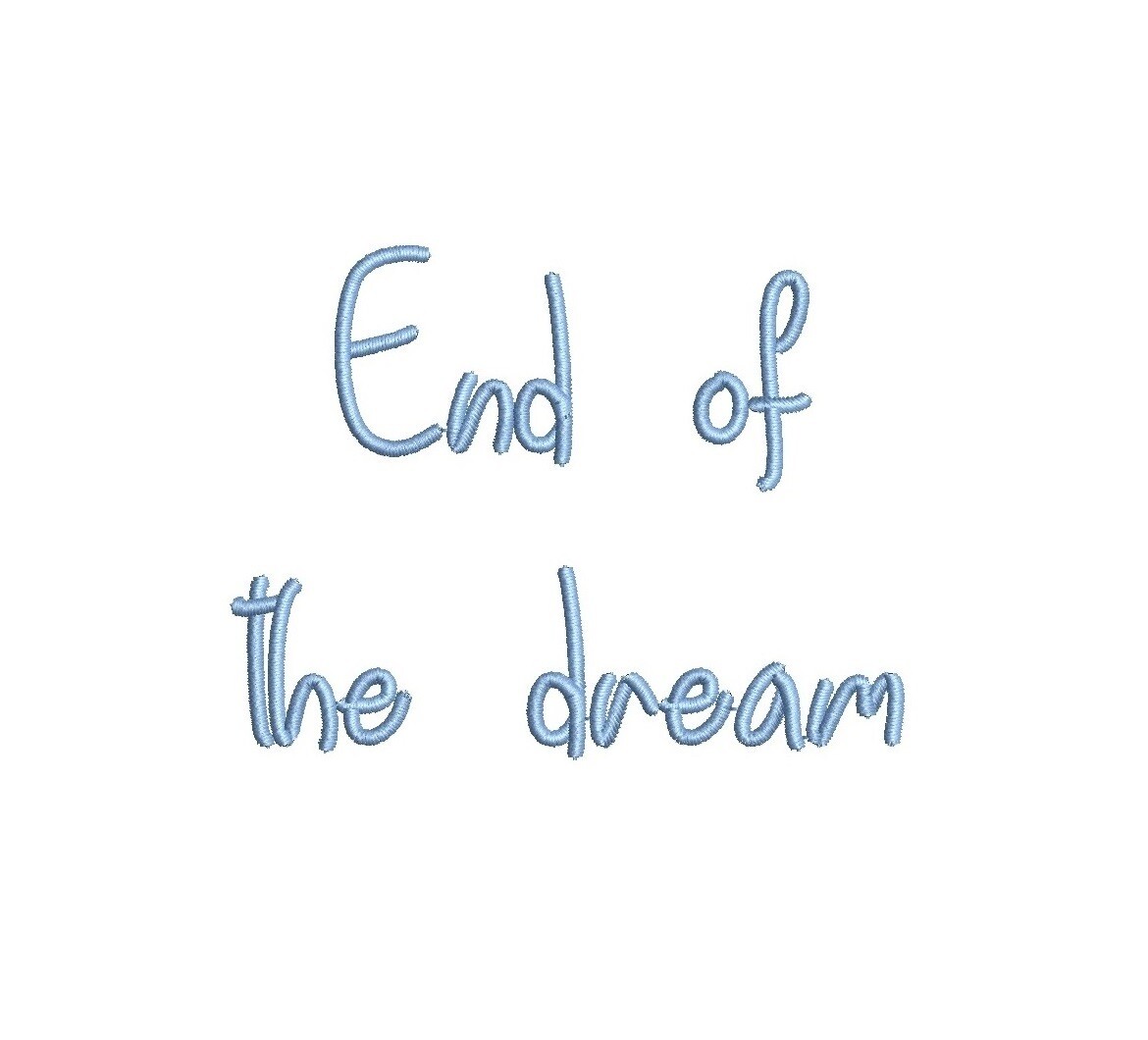
Introducing End of the Dream Regular ESA font - a hauntingly beautiful typeface designed to add a touch of mystery and allure to your designs. Crafted with precision and attention to detail, this premium font guarantees a seamless and enjoyable design experience. Compatible with Wilcom Studio e4.5.6 and Hatch 3 versions and up, this versatile typeface ensures smooth embroidery creation. Whether it's gothic-themed designs, dark romance, or fantasy projects, End of the Dream Regular ESA font lends an intriguing edge to any endeavor. Don't miss out on this captivating gem; elevate your creations with its haunting charm. Get it now and delve into the shadows.